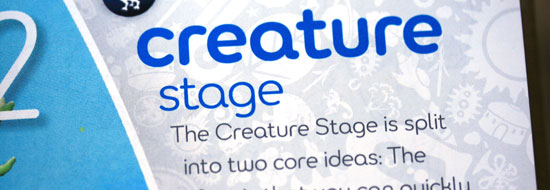
Spore
Spore is a three weight typeface family created exclusively for the Elecronic Arts life simulation hit computer game, Spore.
The typeface was based on the Spore logo, a round and playful design, and is being used in all of the Game's communication and brandingmaterial.
Veronika collaborated with Pete McCracken, owner of Plazmfonts on this project.
The Spore logo and game assets were created by Cinco Design.